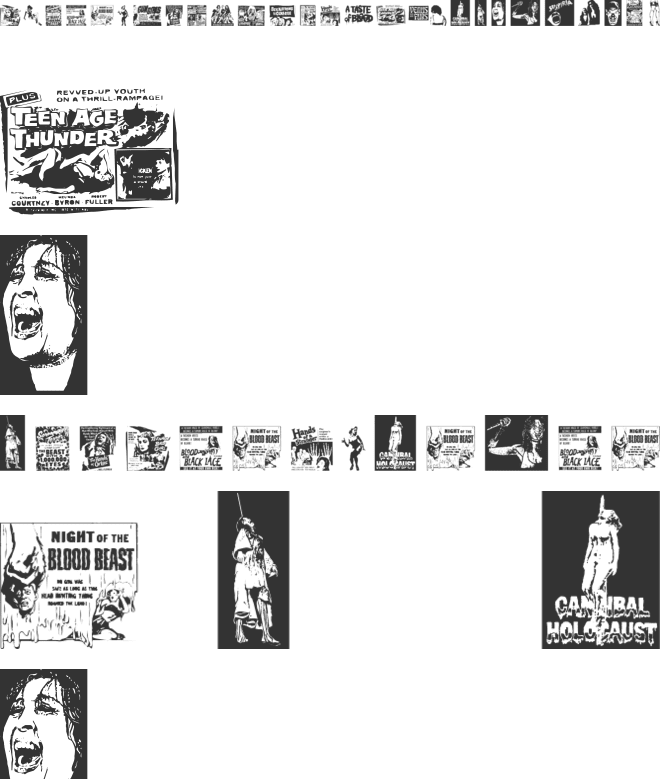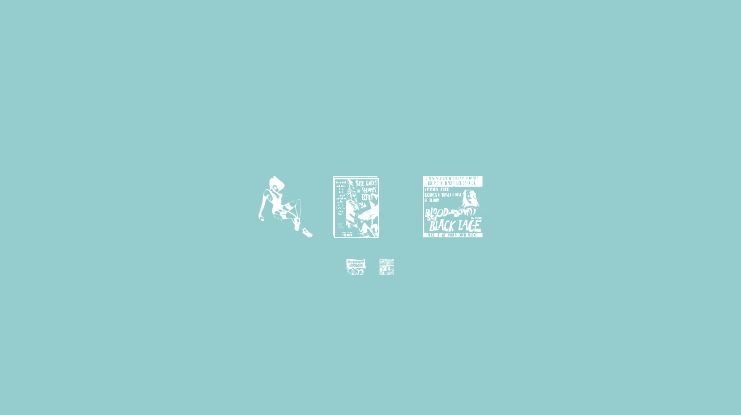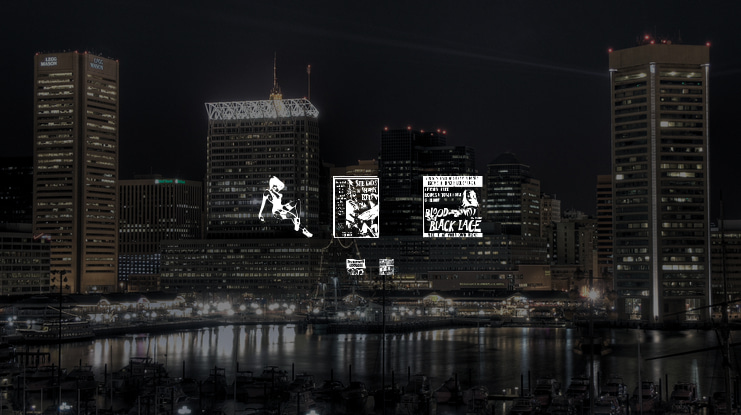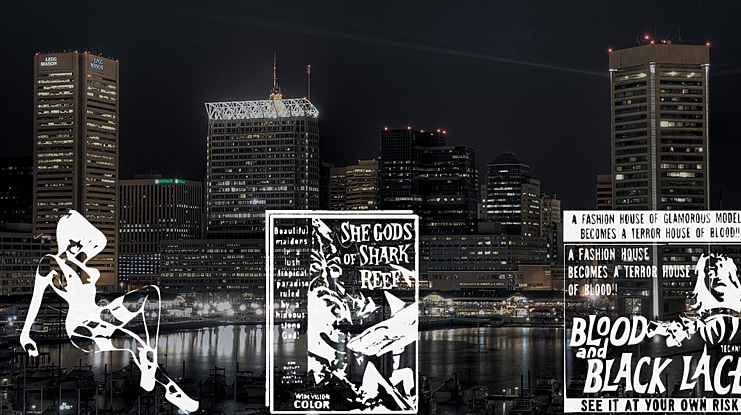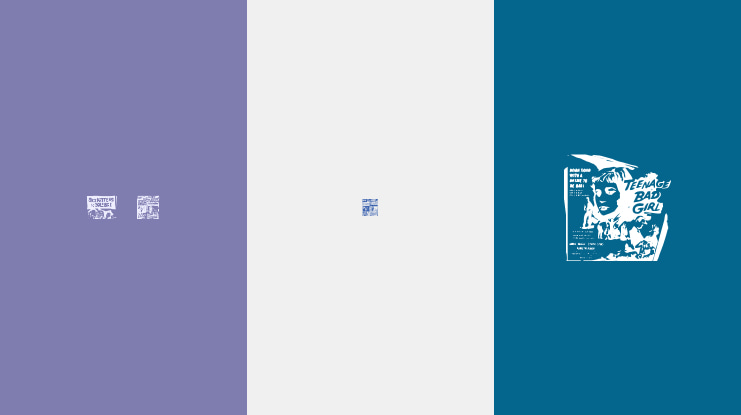
B Movie Dings Font
Made from old ad galleys and deteriorating magazines found in attics, B Movie Dings is probably the most useless dingbat font of all time.